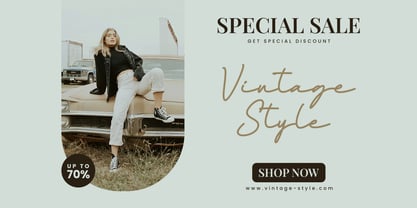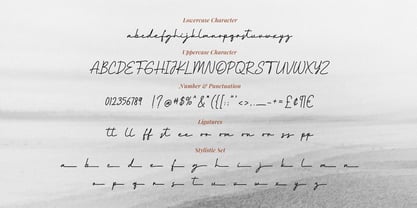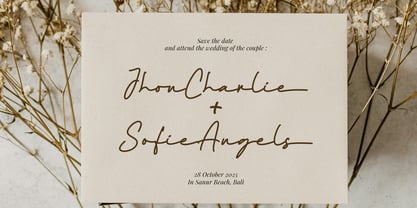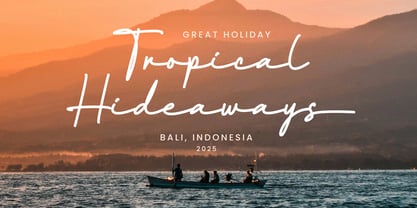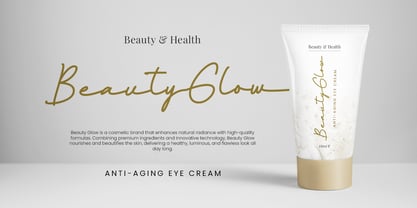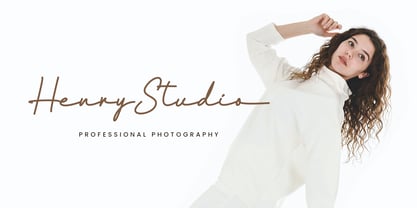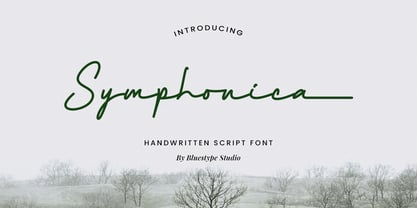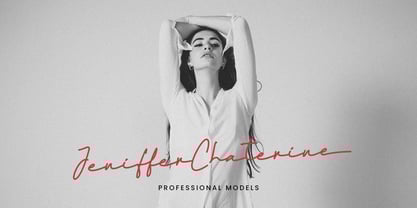
Symphonica
by Bluestype Studio
The Symphonica Font Family was designed by Jefri Dwi Alfatah and published by Bluestype Studio. Symphonica contains 1 styles.
Symphonica – a timeless handwritten font that exudes elegance and sophistication. Inspired by the fluid beauty of classic penmanship, Symphonica brings a touch of grace to every design. Perfect for wedding invitations, branding, logos, and heartfelt quotes, this font captures the essence of tradition while maintaining a modern charm.